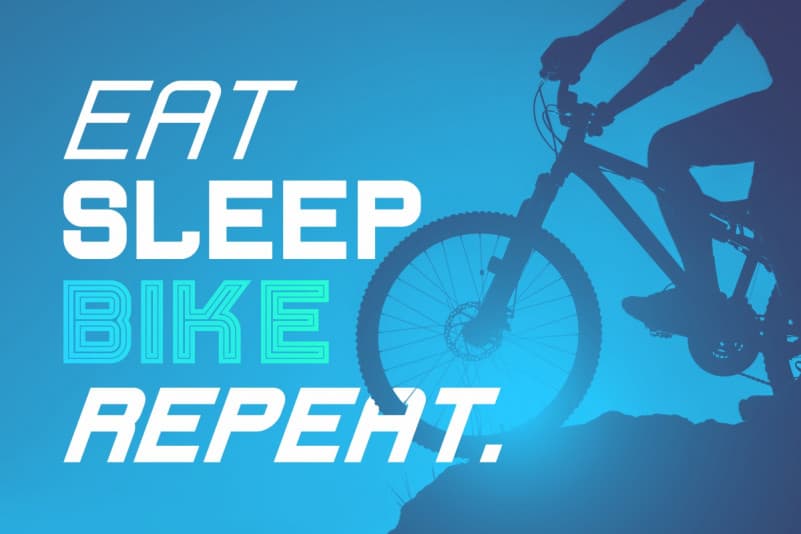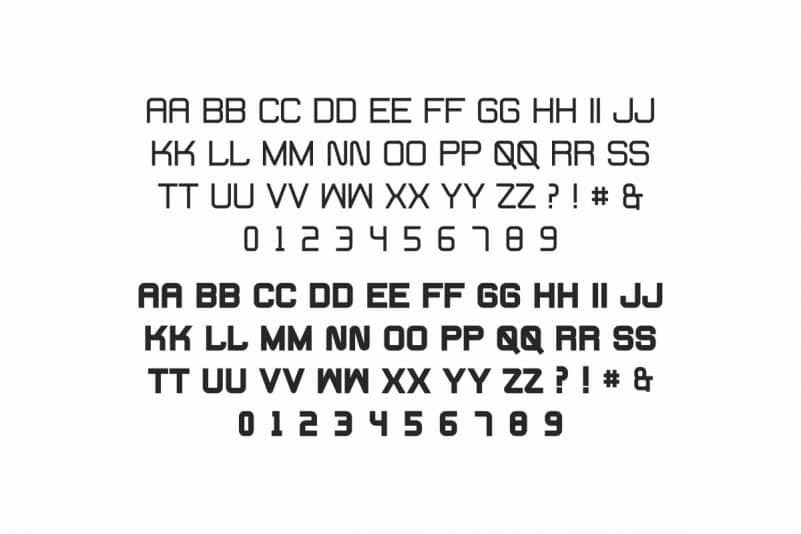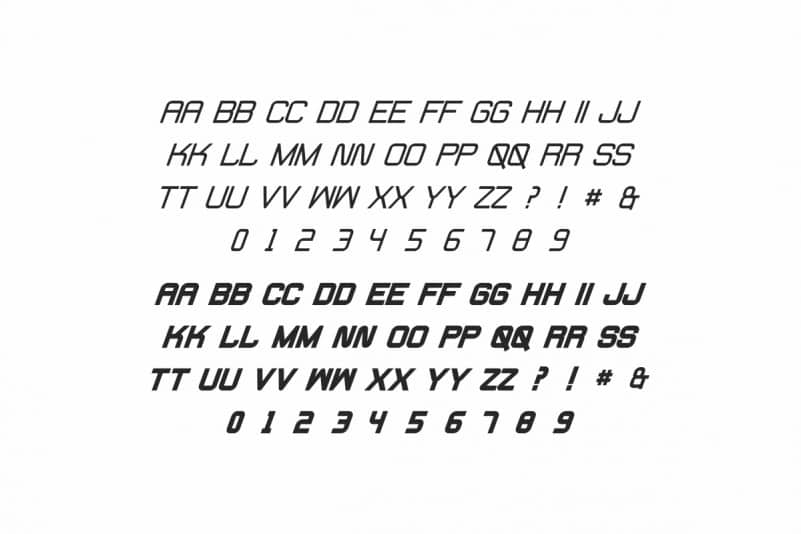
Fearcheer Sans Serif Font
Fearcheer Sans Serif Font will be great for any projects (require extended license) including : branding, logo, stationery, business card, signage, flyer, brochure etc.
The Fearcheer has five styles : Regular, Italic, Outline, Bold and Bold Italic